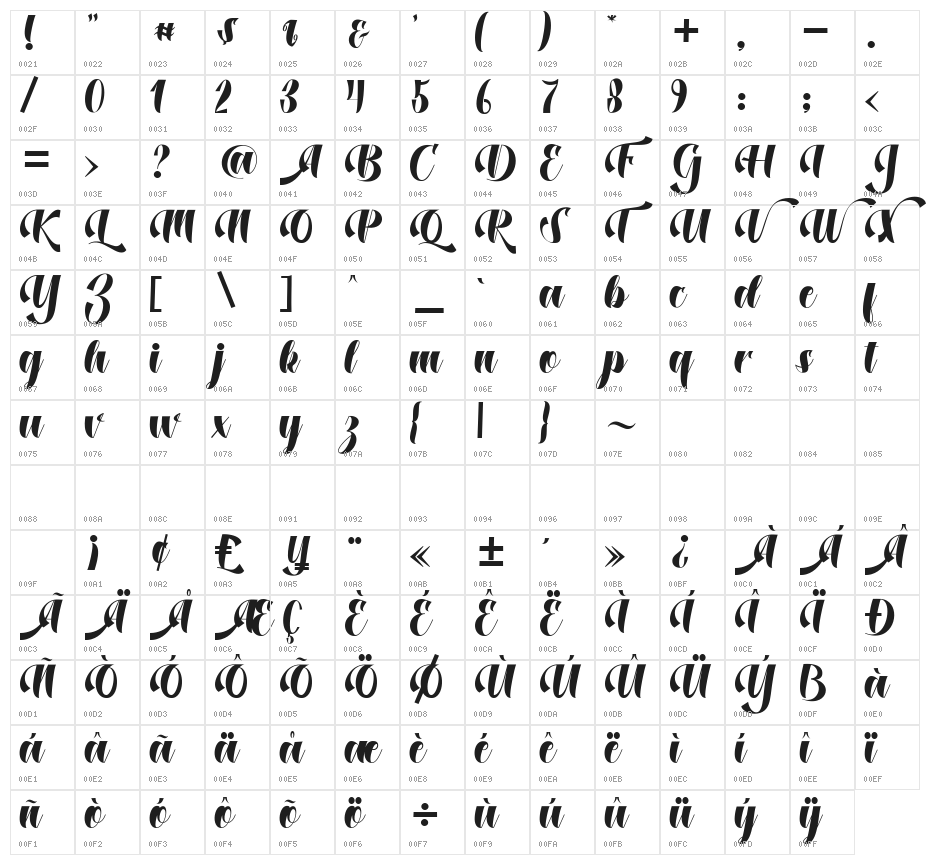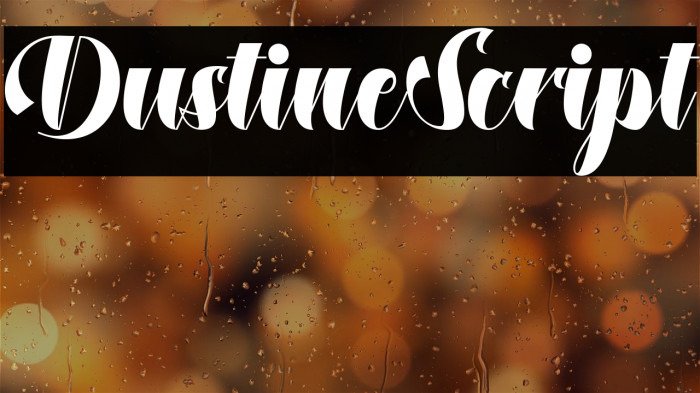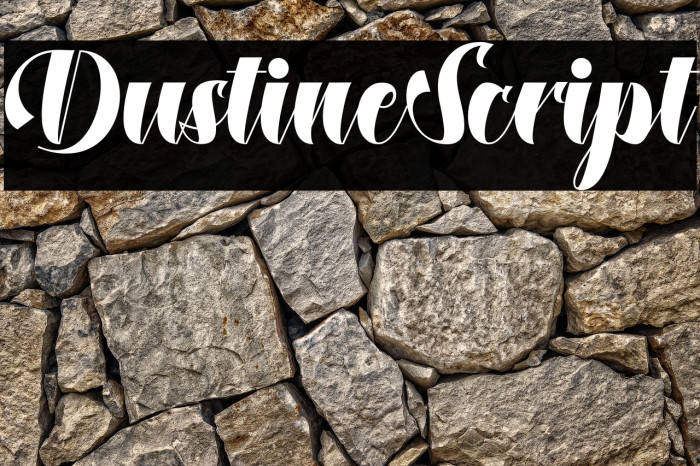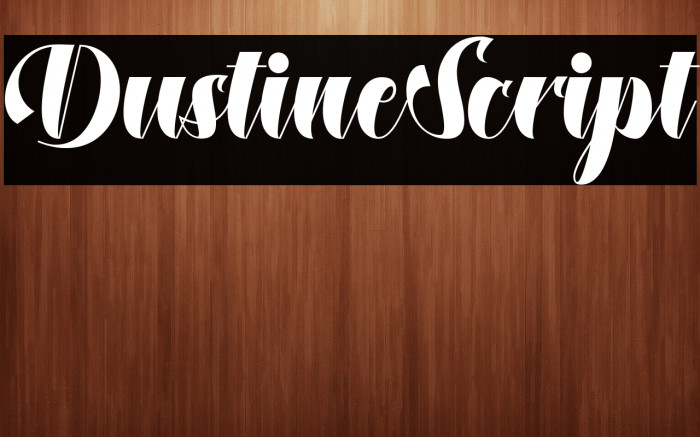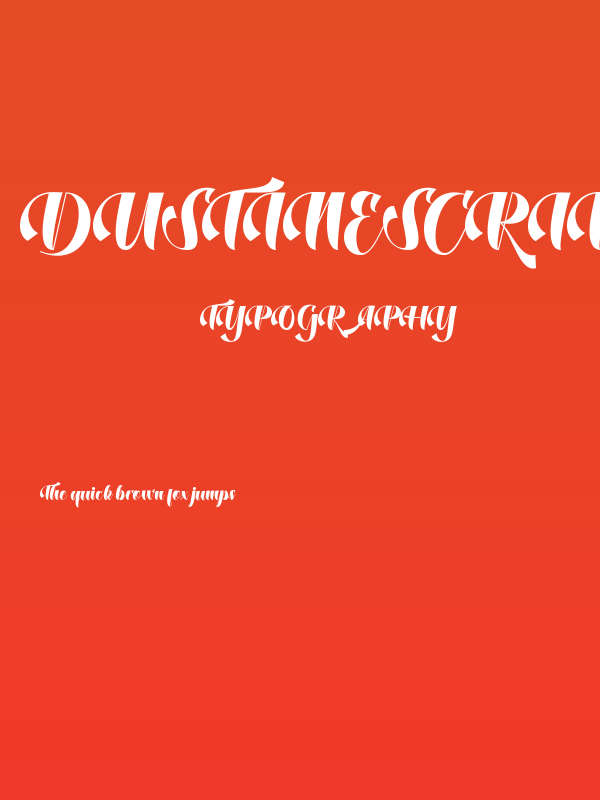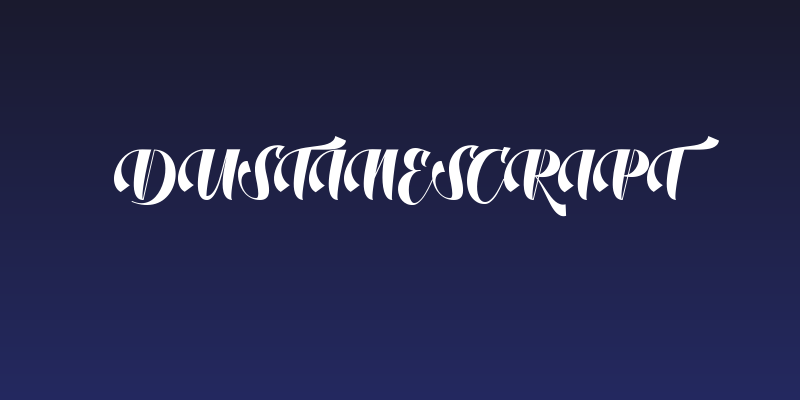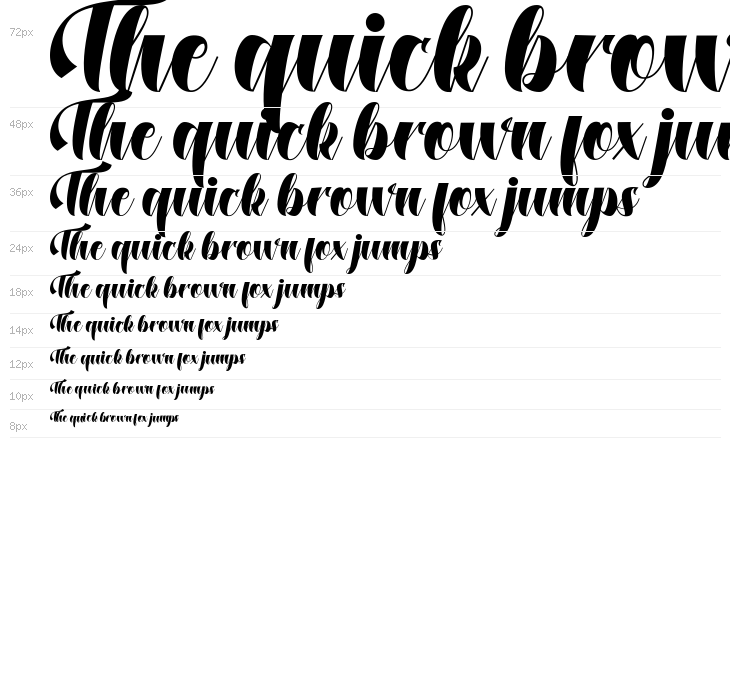
DustineScript Font
DustineScript Description
This font exhibits a dynamic and flowing script style, characterized by its bold, sweeping strokes and elegant curves. The uppercase letters are particularly striking, with dramatic flourishes that give a sense of movement and grace. The lowercase letters maintain a consistent style, offering a harmonious blend of thick and thin lines that enhance readability while preserving the artistic flair. Numbers and special characters follow the same aesthetic, ensuring a cohesive look across all text elements. The overall design is both sophisticated and expressive, making it ideal for creative and decorative applications.
| Use Case | Logos, Headlines, Invitations |
| Proposed Projects | Ideal for wedding invitations, branding, logos, and decorative headlines. |